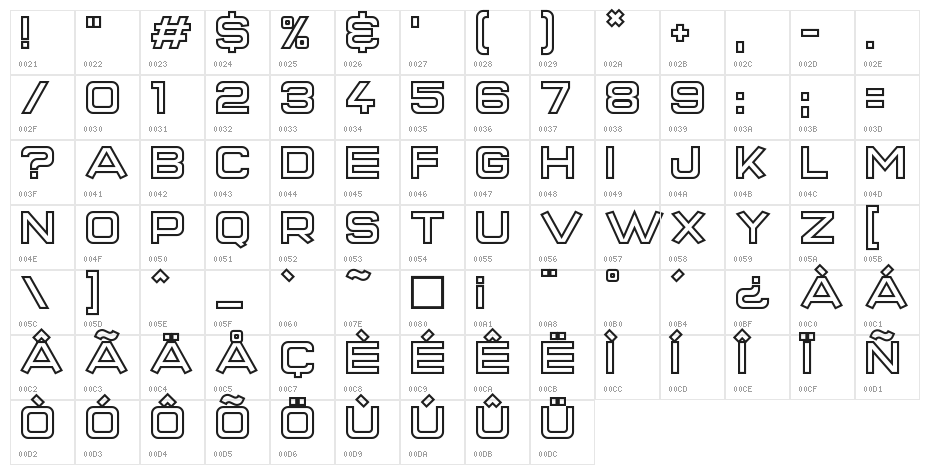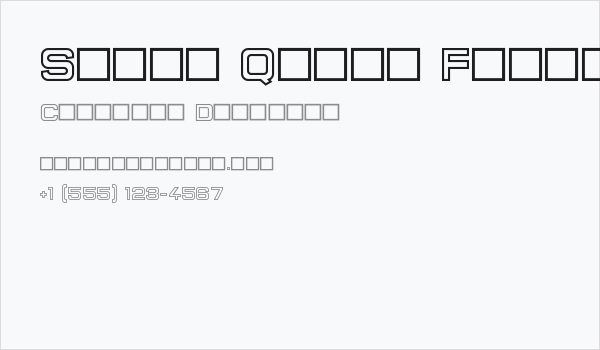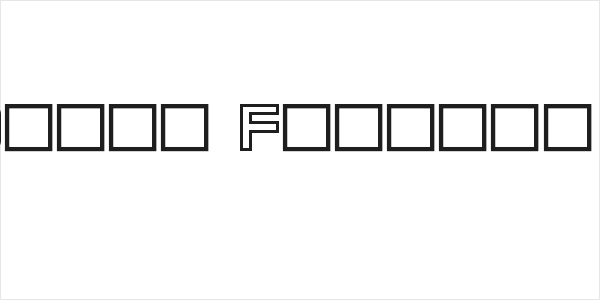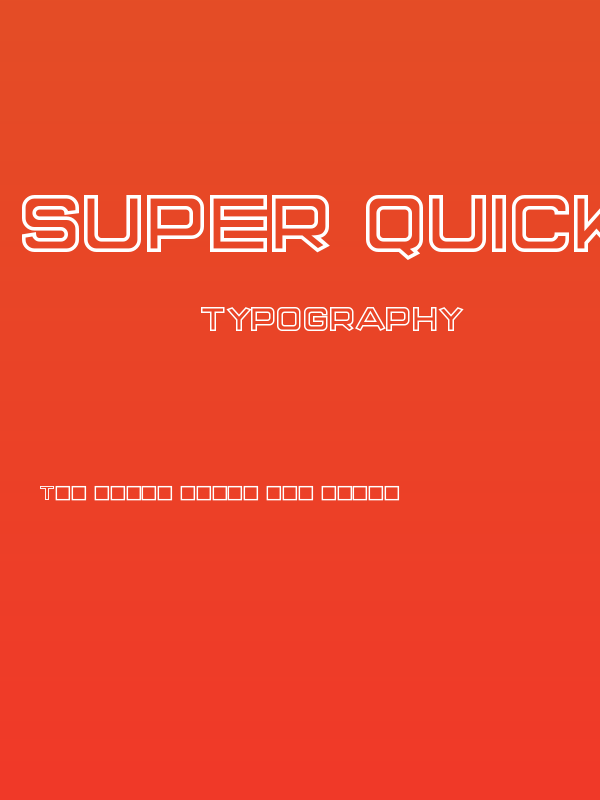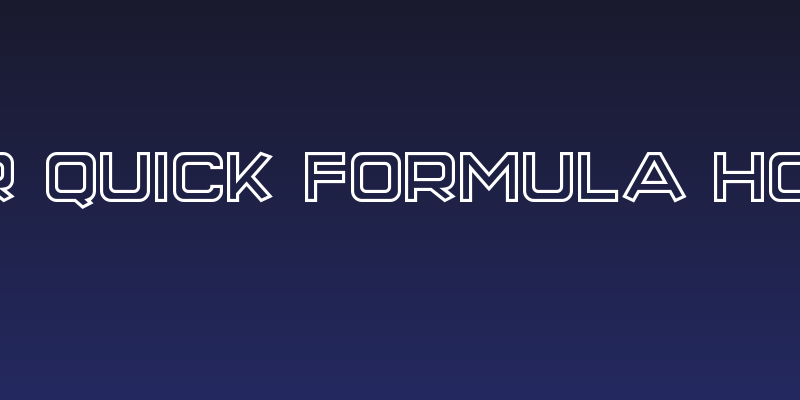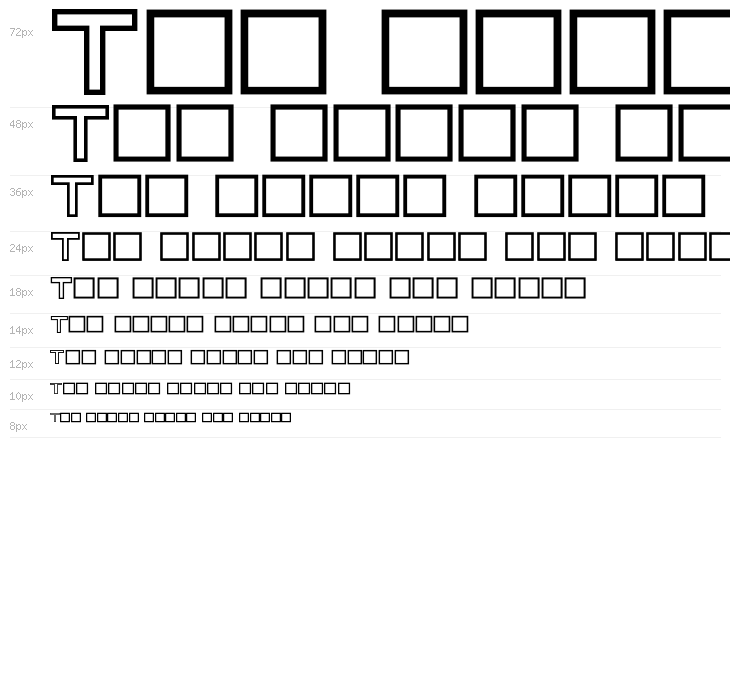
Super Quick Formula Hollow Font
Super Quick Formula Hollow Description
This font features a bold, geometric design with a hollow interior, giving it a modern and futuristic appearance. The characters are constructed with clean, straight lines and sharp angles, creating a sense of precision and clarity. The uppercase and lowercase letters maintain a consistent style, with uniform stroke widths that enhance readability. The numerals and special characters follow the same design principles, ensuring a cohesive look across all elements. This font's hollow design adds a unique visual interest, making it stand out in various applications.
| Proposed Projects | Ideal for technology branding, futuristic posters, video game titles, and digital interfaces. |